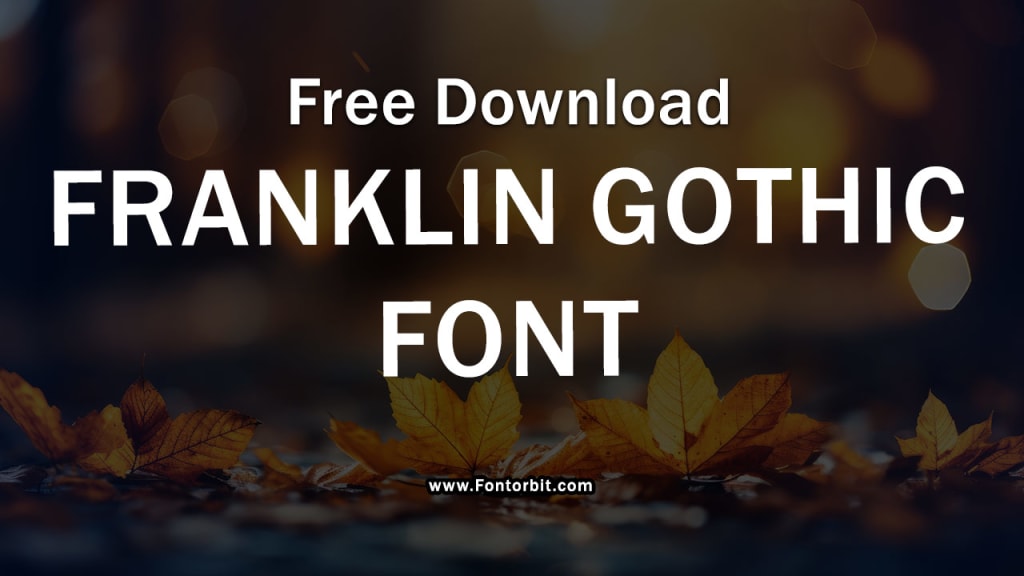
Franklin Gothic Font: A Timeless Typeface for Modern Design
Franklin Gothic Font
Franklin Gothic is a sans-srif typeface that has stood the test of time as a staple in graphic design, advertising, and digital media.
Known for its clean lines, bold structure, and versatile nature, this font continues to be a favorite among designers and typographers worldwide. Whether you're looking to make a bold statement or achieve a clean, professional look, Franklin Gothic offers a wealth of possibilities.
The History of Franklin Gothic
Franklin Gothic was designed in 1902 by Morris Fuller Benton, one of the most prolific typeface designers of the early 20th century. It was released by the American Type Founders (ATF) and was named in honor of Benjamin Franklin, a nod to his contributions to printing and publishing in America.
Initially created for headlines and display purposes, Franklin Gothic quickly gained popularity for its bold and impactful aesthetic. Over the decades, it has been expanded into a family of fonts, including variations such as Franklin Gothic Medium, Franklin Gothic Condensed, and Franklin Gothic Book. Each variation offers unique weights and widths, making the font adaptable to various design needs.
Characteristics of Franklin Gothic
Franklin Gothic is recognized for its:
Thick and bold strokes: Ideal for headlines and titles that demand attention.
Open counters: Ensures excellent readability, even at smaller sizes.
Geometric yet humanistic design: Balances mechanical precision with a touch of warmth.
Minimal decoration: A clean, straightforward appearance that aligns with modern design trends.
These features make Franklin Gothic suitable for a wide range of applications, from print media to digital interfaces.
Applications of Franklin Gothic
Franklin Gothic has been used across various mediums, including:
1. Print Media
Magazines, newspapers, and books often use Franklin Gothic for headlines and subheadings due to its ability to command attention without sacrificing readability.
2. Advertising and Marketing
The bold and versatile nature of Franklin Gothic makes it a go-to choice for advertisements, posters, and branding materials.
3. Web Design
In the digital age, Franklin Gothic has seamlessly transitioned into web design, offering a clean and professional look for websites and digital content.
4. Corporate Branding
Many companies use Franklin Gothic in their logos, letterheads, and other corporate materials to convey professionalism and reliability.
Why Designers Love Franklin Gothic
Designers appreciate Franklin Gothic for its:
Versatility: Suitable for a variety of projects, from formal documents to creative campaigns.
Timeless appeal: A design that feels both classic and contemporary.
Readability: Clear and legible, even at different sizes and weights.
Conclusion
Franklin Gothic remains a timeless and versatile typeface that continues to be relevant in the ever-evolving world of design. Its bold, clean, and professional aesthetic makes it a reliable choice for designers across industries.
Whether you are working on a print project, a digital campaign, or corporate branding, Franklin Gothic provides the perfect blend of functionality and style.
1. Who designed Franklin Gothic?
Franklin Gothic was designed by Morris Fuller Benton in 1902 for the American Type Founders.
2. What are the main characteristics of Franklin Gothic?
Franklin Gothic is known for its bold strokes, open counters, geometric yet humanistic design, and minimal decoration.
3. Where is Franklin Gothic commonly used?
It is commonly used in print media, advertising, web design, and corporate branding.
4. Is Franklin Gothic a free font?
Franklin Gothic is not free but is widely available for purchase or licensing through font foundries and software packages like Adobe Fonts.
5. What makes Franklin Gothic different from other sans-serif fonts?
Franklin Gothic balances boldness and readability with a timeless appeal, making it more versatile than many other sans-serif fonts.
6. Can Franklin Gothic be used for body text?
While it is primarily used for headlines and display text, lighter weights of Franklin Gothic can work well for body text.
7. Are there variations of Franklin Gothic?
Yes, there are several variations, including Franklin Gothic Medium, Franklin Gothic Condensed, and Franklin Gothic Book, each offering unique weights and widths.